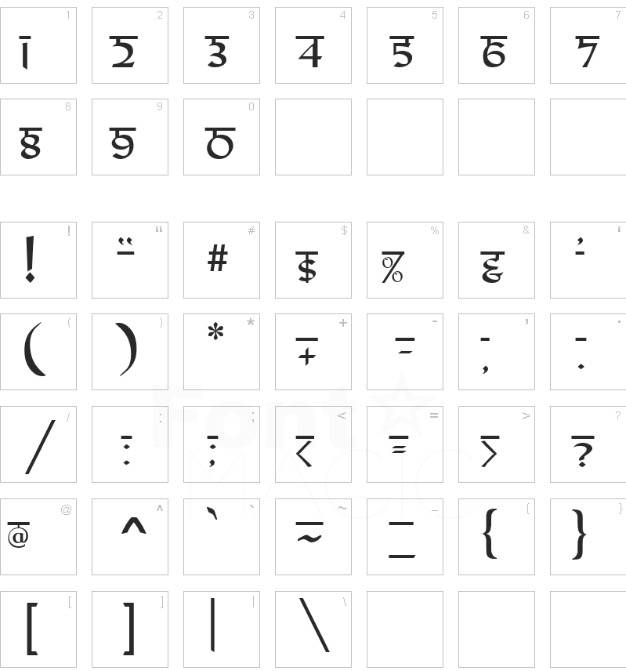
It Is Also Known As Marathi Legacy Fonts.
It Is Different From True Type Unicode Fonts.
These Fonts Uses English Characters To Produce Hindi (Devanagari) Script.
Pixellab Marathi Font Is The Popular Font In India And Uses High.